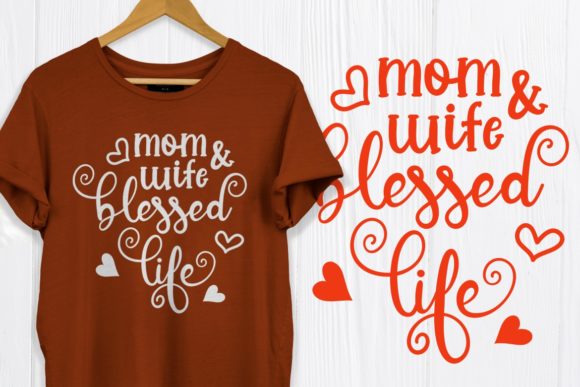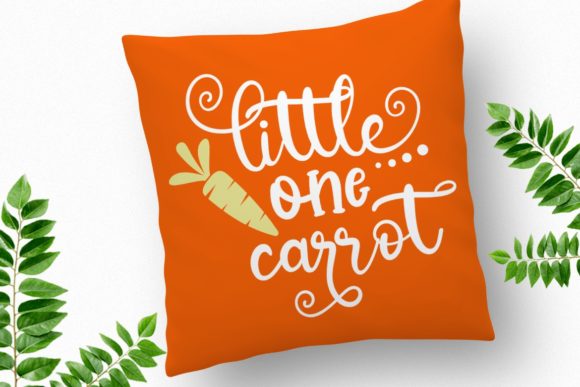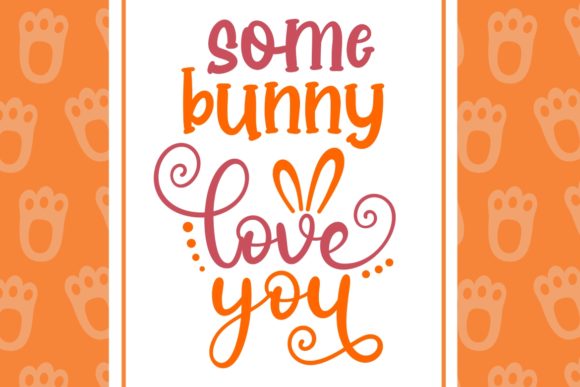
The Cutest Duo in Town: Baby Bunny Font
Have you ever stared at a blank canvas, pencil in hand, waiting for inspiration to strike? It’s that magical moment when creativity takes over, and ideas start pouring in. For designers, it’s the thrill of the hunt – finding that perfect combination of fonts, colors, and doodles to bring a project to life. And, if you’re looking for a secret ingredient to add a touch of whimsy to your designs, look no further than the adorable Baby Bunny Font.
This delightful duo font combines the playfulness of a script font with the clean lines of a sans font, creating a unique and friendly feel that’s sure to capture hearts. But what really sets Baby Bunny Font apart is its sweet doodles – the perfect addition to elevate your crafting projects from ordinary to extraordinary. Whether you’re designing for kids, baking, or simply want to add a touch of fun to your everyday life, Baby Bunny Font is the perfect companion to have by your side.
Baby Bunny Font Key Features
- Font Family: Baby Bunny Font is a hand-drawn, whimsical font designed for use in various creative projects.
- Character Set: Includes a wide range of characters, including uppercase and lowercase letters, numbers, and punctuation marks.
- Unique Characteristics: Features a playful, childlike aesthetic with rounded edges and soft lines, making it perfect for designs targeting a younger audience or those requiring a whimsical touch.
Baby Bunny Font Review
Overall, I think the Baby Bunny Font is a cute and playful addition to any design project. ✨ It’s perfect for children’s books, nursery decor, or any other design that needs a touch of whimsy.
- The font’s rounded edges and soft lines make it very approachable and kid-friendly. ✨
- The font’s simplicity allows it to be easily readable, even at smaller font sizes. ✨
- The font’s playful feel makes it perfect for designs that need a touch of fun and personality. ✨
- The font may not be suitable for more formal or professional designs, as it can come across as too childish. ⚠️
- The font’s simplicity may also make it less versatile, as it may not be able to handle complex or technical content. ⚠️
Overall, I think the Baby Bunny Font is a great choice for the right project, but it may not be suitable for every design need. With its playful feel and simple design, it’s perfect for projects that need a touch of whimsy and fun.
Tips for Getting the Most Out of Baby Bunny Font
For the best results, use Baby Bunny Font in conjunction with other whimsical or playful design elements. It’s perfect for creating a nursery or children’s party theme.
Baby Bunny Font is commonly used for:
- Nursery decorations
- Children’s party invitations
- Infant product branding
- Whimsical blog or social media posts